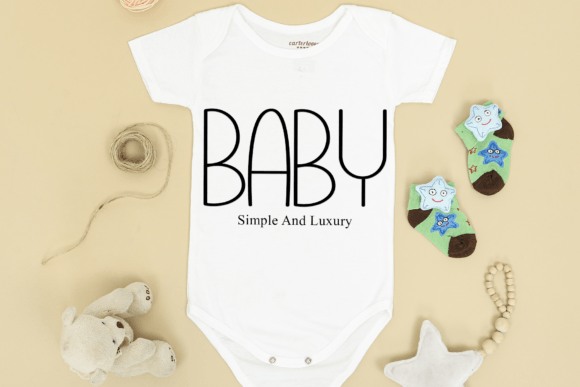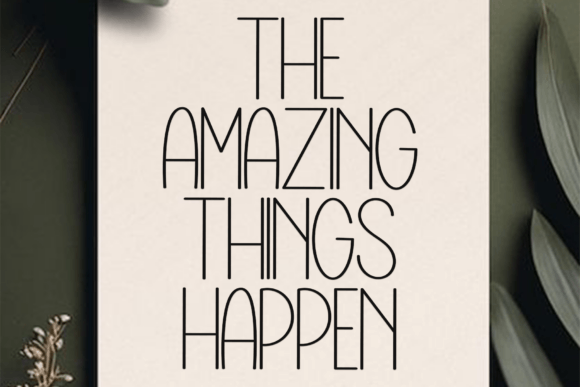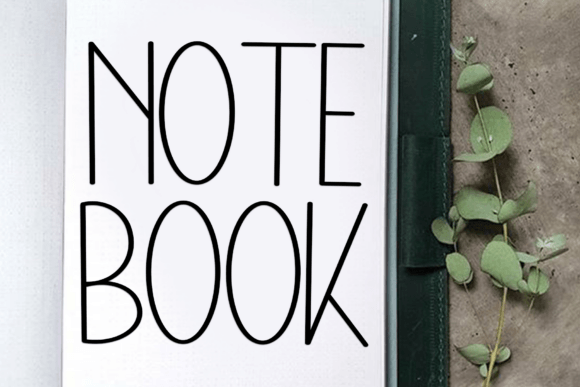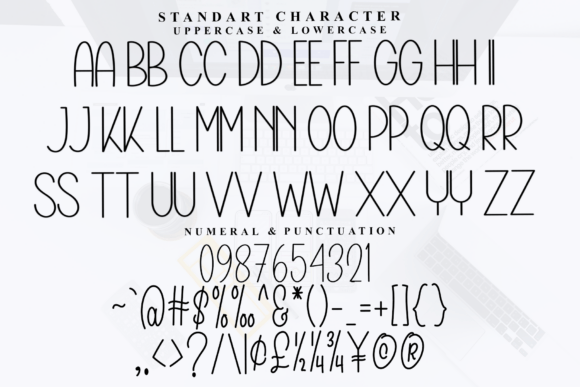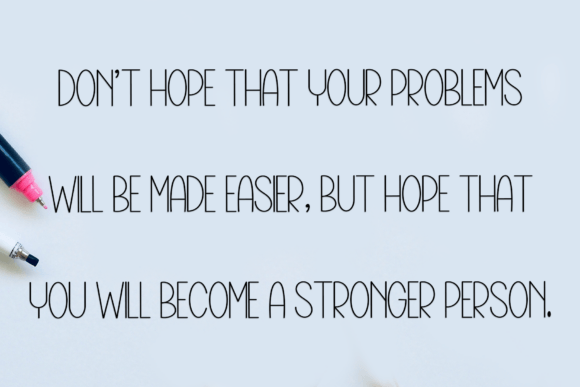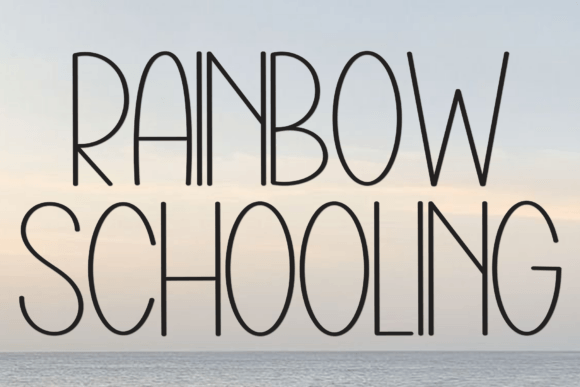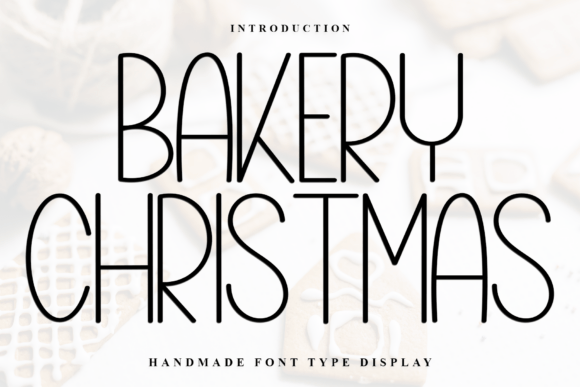
Bakery Christmas Font: The Perfect Addition to Your Holiday Designs
As the holiday season approaches, designers and crafters are on the lookout for the perfect fonts to add a touch of festive cheer to their projects. If you’re searching for a font that’s casual, creative, and exudes warmth and friendliness, look no further than the Bakery Christmas Font. In this article, we’ll take a closer look at this charming font and explore its features, benefits, and uses.
What is Bakery Christmas Font?
Bakery Christmas Font is a unique and playful font that’s perfect for adding a personal touch to your holiday designs. Its round, playful strokes create a relaxed and approachable feel, making it ideal for personal projects, invitations, social media graphics, and more. The font’s charming, hand-drawn aesthetic adds a fun and unique touch to any design, making it stand out from more traditional fonts.
Key Features of Bakery Christmas Font
• Casual and Creative: Bakery Christmas Font is a casual and creative font that’s perfect for designers and crafters who want to add a personal touch to their projects.
• Warm and Friendly: The font’s round, playful strokes create a warm and friendly feel that’s perfect for holiday designs.
• Hand-Drawn Aesthetic: The font’s charming, hand-drawn aesthetic adds a fun and unique touch to any design.
Benefits of Using Bakery Christmas Font
There are many benefits to using Bakery Christmas Font in your holiday designs. Here are just a few:
• Unique and Eye-Catching: The font’s playful and charming aesthetic makes it stand out from more traditional fonts, adding a unique and eye-catching touch to your designs.
• Versatile: Bakery Christmas Font is perfect for a variety of projects, including personal projects, invitations, social media graphics, and more.
Uses of Bakery Christmas Font
Bakery Christmas Font is a versatile font that can be used in a variety of projects, including:
• Holiday Invitations: Add a personal touch to your holiday invitations with this charming font.
• Social Media Graphics: Use the font to create festive social media graphics that are sure to stand out.
• Personal Projects: Add a unique and eye-catching touch to your personal projects, such as holiday cards and gift tags.
• Crafting Projects: Use the font to add a personal touch to your crafting projects, such as scrapbooking and DIY decorations.
Bakery Christmas Font is a charming and versatile font that’s perfect for adding a personal touch to your holiday designs. Its casual and creative aesthetic, combined with its PUA Encoded glyphs, make it a great choice for designers and crafters of all skill levels. Whether you’re creating holiday invitations, social media graphics, or personal projects, this font is sure to add a unique and eye-catching touch to your designs.